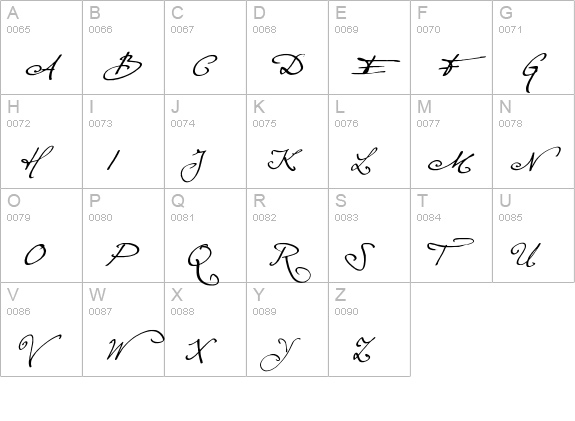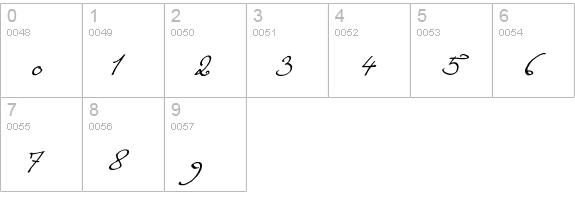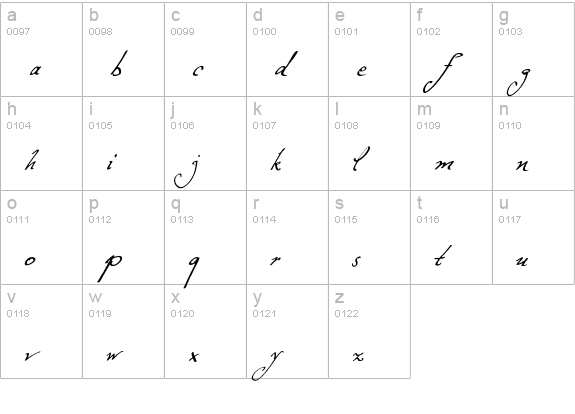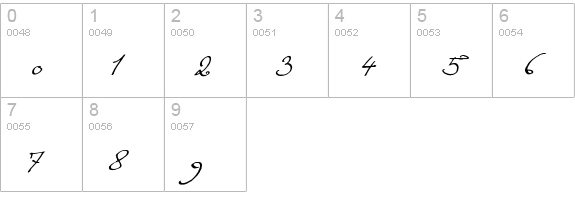
Excellentia in excelsis Font Details
Excellentia in excelsis font is a beautiful and elegant typeface that exudes sophistication and class. With its intricate details and graceful curves, this font is perfect for adding a touch of luxury to any design project. Whether you're working on a branding project, wedding invitation, or any other creative endeavor, Excellentia in excelsis font will elevate your work to new heights. The best part? This stunning font is available for free download at FontsMarket.com. Simply visit the website and start using Excellentia in excelsis font in your projects today. Don't miss out on this opportunity to enhance your designs with this exquisite typeface that will surely impress your audience.